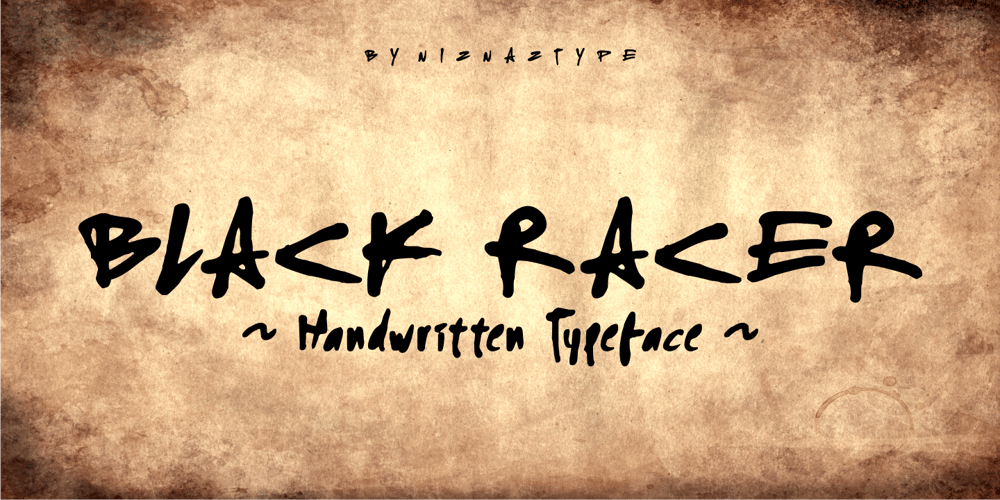
Black Racer
Black Racer font
Black Racer Font Family was designed by Muhammad Nazarudin and published by Niznaztype. Black Racer contains 1 styles and family package options. Black Racer is a handwritten typeface that using brush technique when creation process. Black Racer is stylish postmodern handwritten and very natural of all glyphs set.Black Racer is very perfect for graphic designs that using a script font as a main character. Like advertising, tagline of product, product naming, designs with signature styles, headline, postmodern design, t-shirt, branding of product etc.Black Racer font will make your graphic designs have strong characteristic and more eye catching. It will increase the value and quality your product.